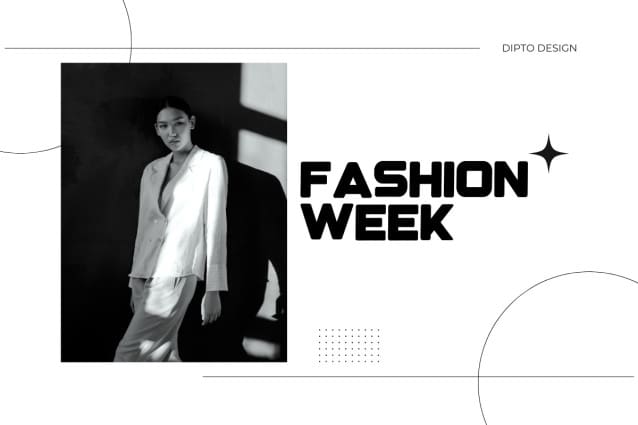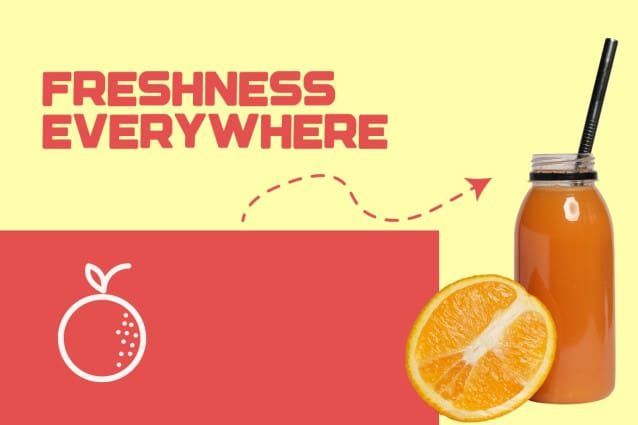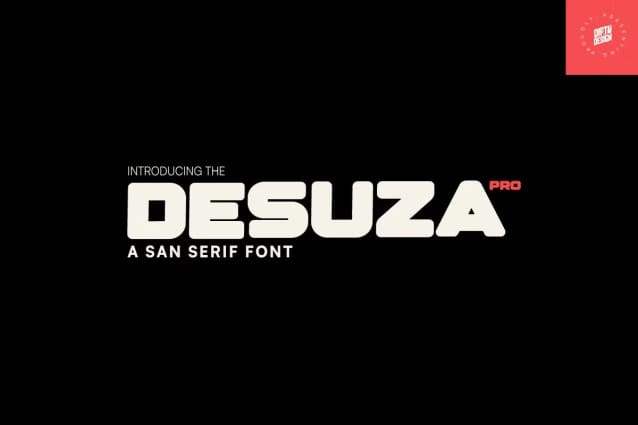
DesuzaPro Font
DesuzaPro Font isn’t for the faint of heart. It’s a bold, sans-serif font designed to make a statement. Its thick strokes and unwavering presence exude confidence and authority, perfect for brands that demand to be seen and heard.
Imagine headlines that leap off the page. Envision posters that stop viewers in their tracks. DesuzaPro doesn’t blend in; it cuts through the noise with its powerful presence.